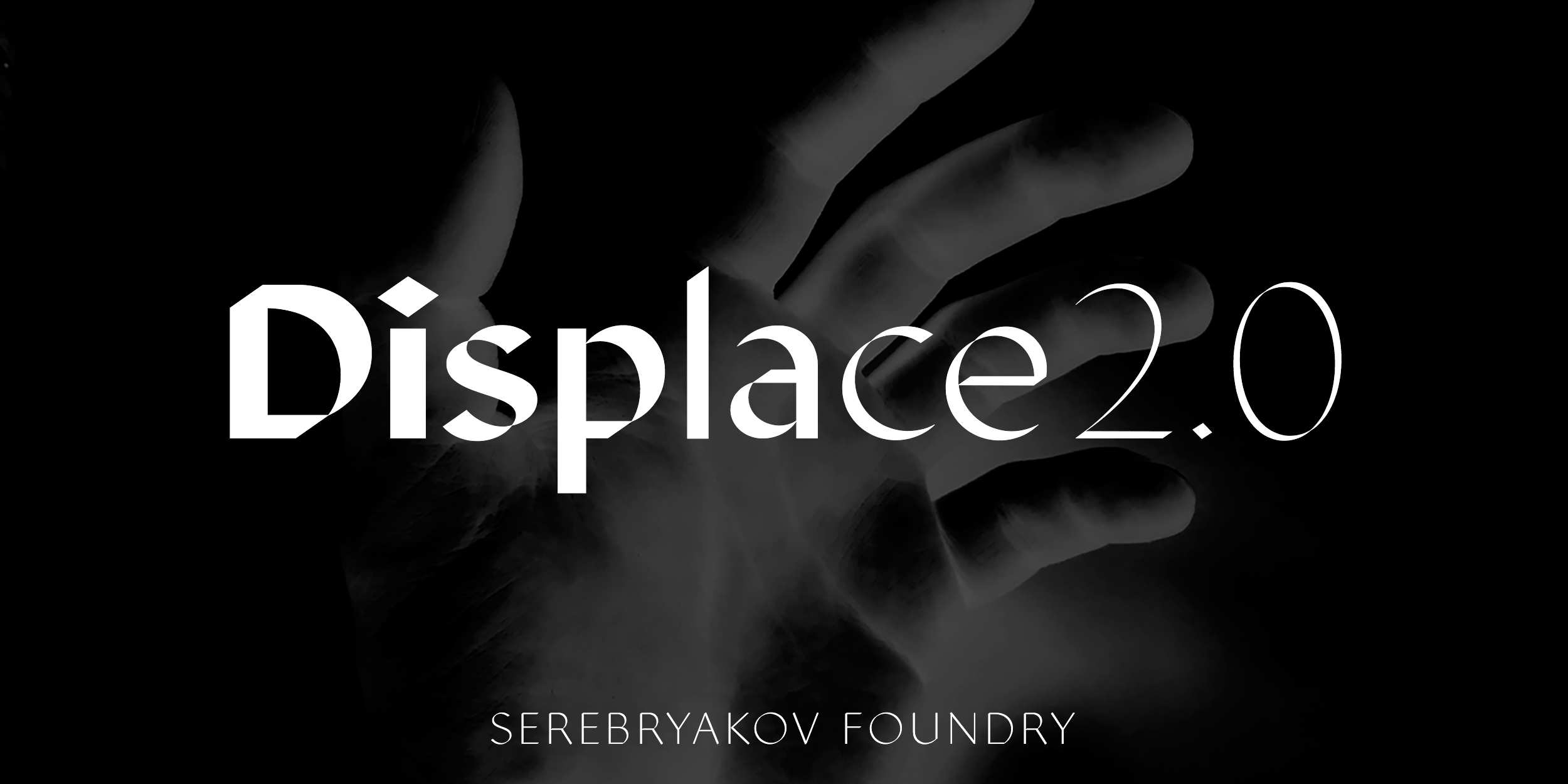
The Displace 2.0 Font excels in various design applications including disruptive technology branding, revolutionary startup communications, experimental digital art projects, avant-garde poster design, cutting-edge software interfaces, innovative gaming graphics, progressive music industry materials, rebellious fashion campaigns, transformative brand identities, and paradigm-shifting design projects that demand visual disruption and unconventional creative expression.
What makes the Displace 2.0 Font exciting is its revolutionary approach to typography that deliberately challenges traditional letterform conventions through dynamic displacement effects and innovative character constructions that create visual tension and creative disruption. This typeface embodies the spirit of digital transformation through carefully engineered distortions that suggest movement, change, and technological evolution while maintaining functional readability. The font's disruptive personality makes it perfect for brands and projects seeking to communicate innovation, challenge status quo thinking, and establish market differentiation through typography that literally displaces conventional design expectations.
The Displace 2.0 Font family typically includes multiple displacement variations with different distortion levels, featuring experimental alternate characters, glitch-inspired effects, and dynamic styling options. These family options often include specialized versions with enhanced digital effects, transformative ligatures, and revolutionary glyphs that provide designers with comprehensive tools for creating authentically disruptive typography that pushes creative boundaries while maintaining contemporary relevance.
Creative industry professionals and innovation-focused brands consistently select Displace 2.0 Font Free Download for projects requiring typography that breaks conventional design rules and creates memorable visual impact. This typeface delivers exceptional performance in tech startup branding, creative agency portfolios, and experimental design contexts where establishing creative leadership and demonstrating innovative thinking is essential for market disruption. The font's displacement character makes it particularly effective for gaming and digital entertainment applications. Download Displace 2.0 Font Free Download today to access this revolutionary typeface that transforms creative communications with its disruptive innovation and experimental sophistication, creating compelling visual experiences that challenge conventions and establish new paradigms in contemporary typography design.